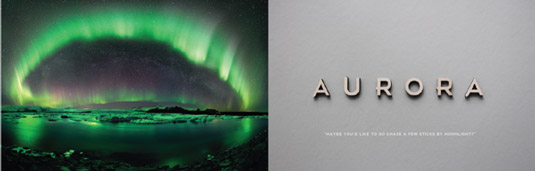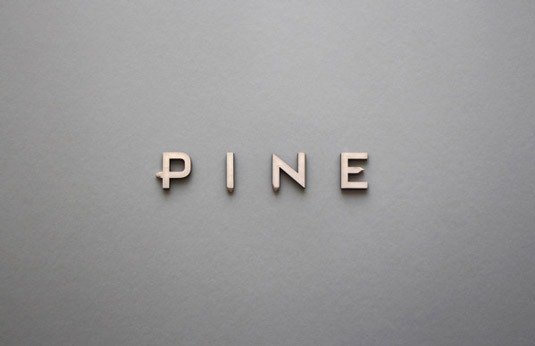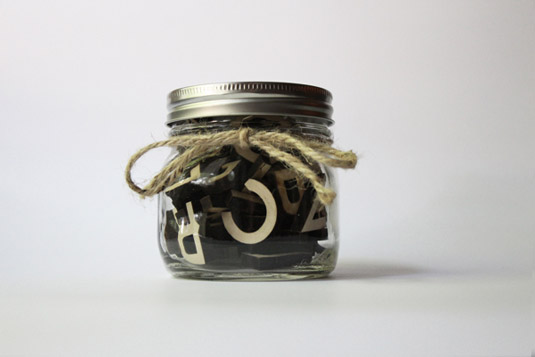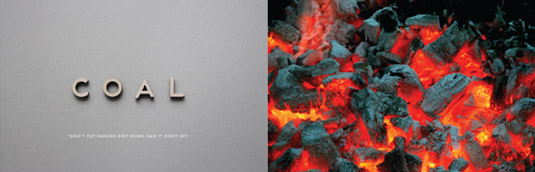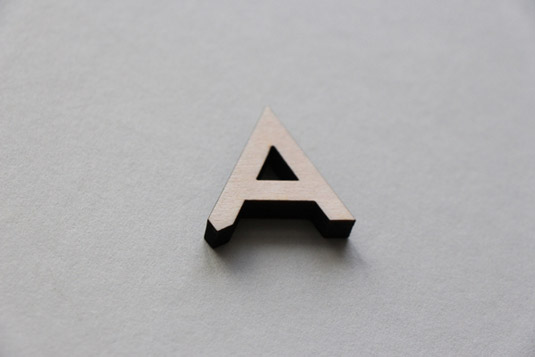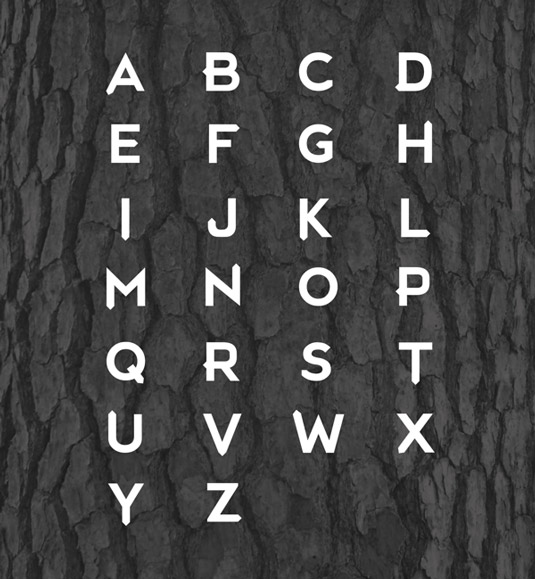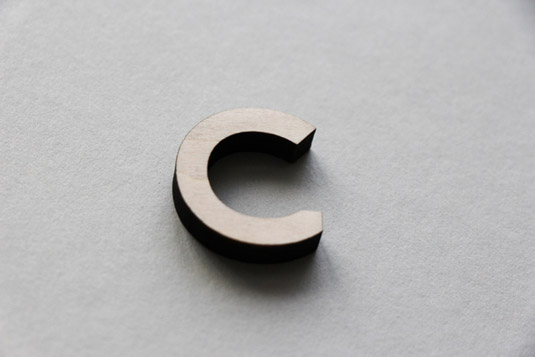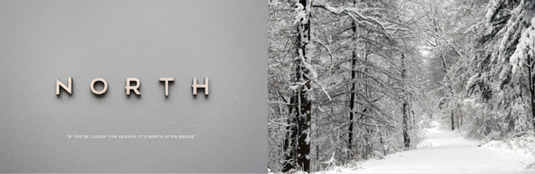
Wooden typeface combines sophistication and simplicity
Inspired by the strength and elegance of nature, graphic design student creates this beautiful, handcrafted wooden typeface.
Being huge typography fans here at Creative Bloq, our excitement levels are always raised a notch or two when we come across innovative new designs like this handcrafted typeface Pine by Cody Petts.
"Pine is a finely crafted typeface meant to embody the strength and elegance of nature," explains Petts, a student of the Multimedia Design program at the University of Wisconsin-Stout. "Laser cut from wood, each character has rich physicality while maintaining graphic sophistication."
We just love seeing a physical typeface, especially when it's one as beautiful as this. Petts has done an amazing job at presenting this simple yet elegant design, showcasing various letter of the alphabet with the name of a natural element that inspired the font's creation.